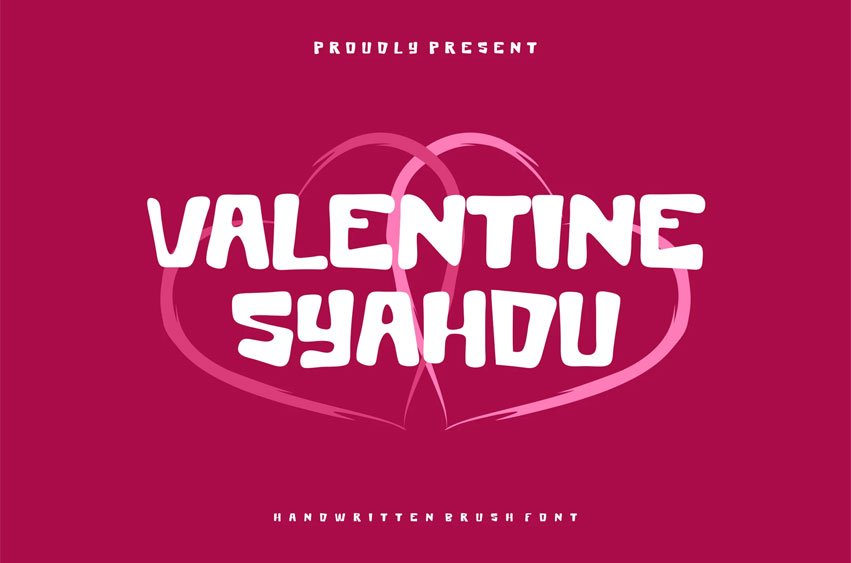
Valentine Syahdu Font is a font with a bold and authentic look and includes a complete set with uppercase and lowercase letters, multilingual support, numbers, and punctuation, providing versatility for a variety of design applications.
This font is suitable for any branding project such as logos, t-shirt printing, esports, and more. Introducing our new product modern fonts Valentine Syahdu Font.